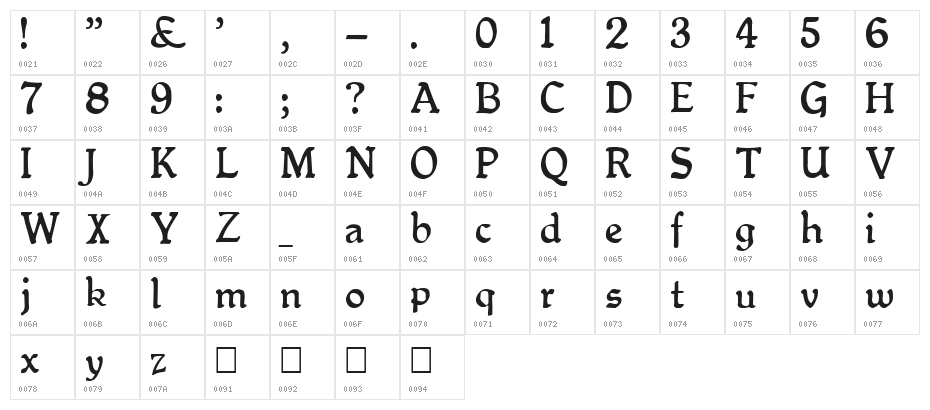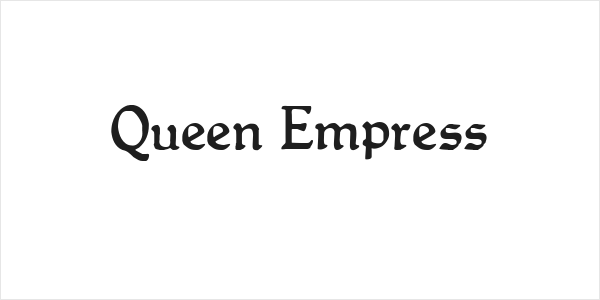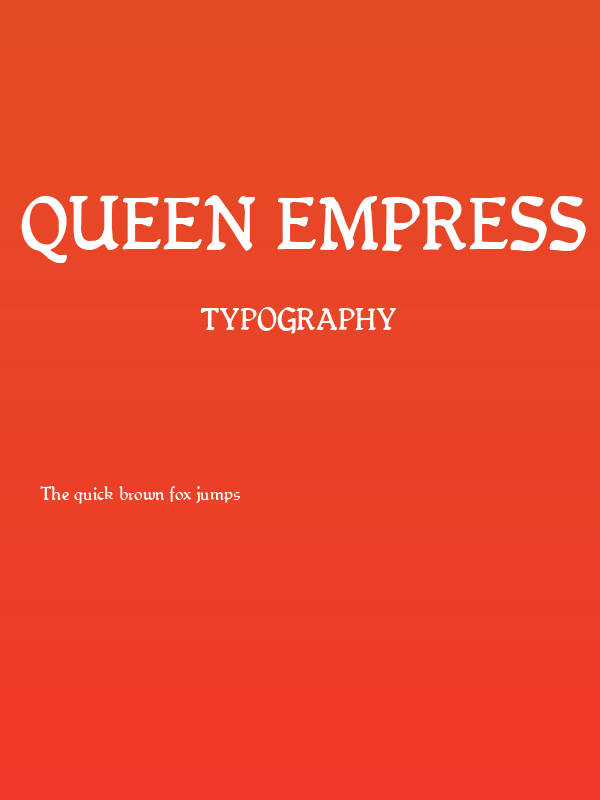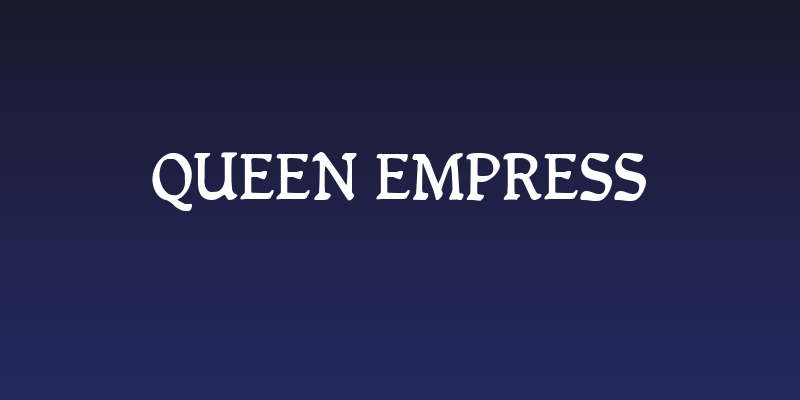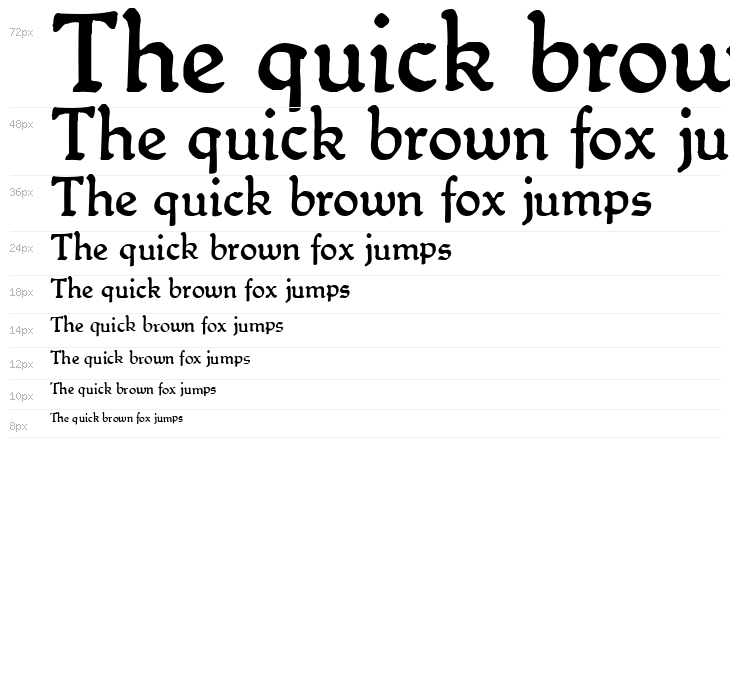
Queen Empress Font
Queen Empress Description
This font features a classic and elegant design with a touch of vintage flair. The characters have a distinct serif style, with slightly curved and flared strokes that add a sense of sophistication. The uppercase letters are bold and commanding, while the lowercase letters maintain a consistent flow with rounded edges. The numerals are well-proportioned and align seamlessly with the overall aesthetic. Special characters are crafted with attention to detail, enhancing the font's versatility. The font's design is reminiscent of traditional typesetting, making it suitable for projects that require a timeless and refined appearance.
| Proposed Projects | Ideal for book covers, formal invitations, branding for luxury products, and editorial layouts. |